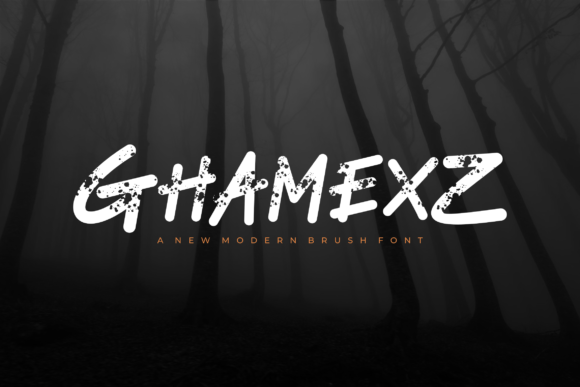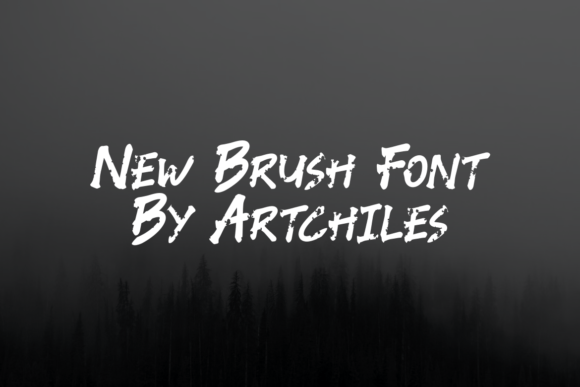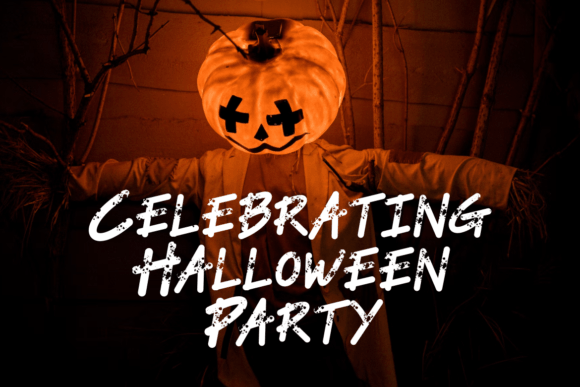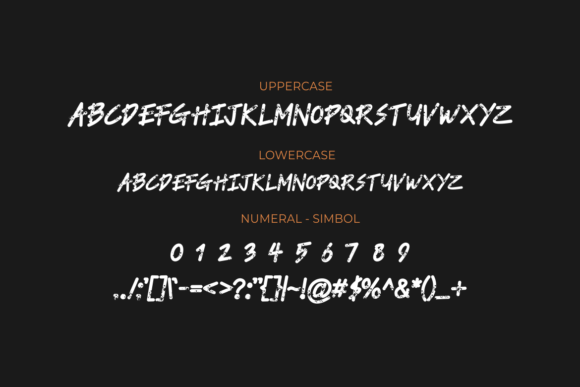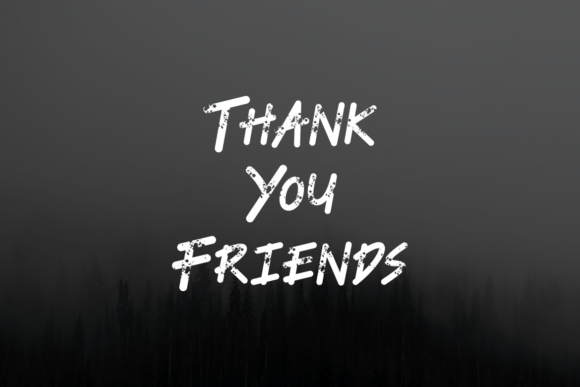
Have you ever stared at a blank canvas, waiting for the perfect font to bring your design to life? It’s a moment we’ve all been in – the creative block that threatens to derail even the most brilliant ideas. But what if the solution was right in front of you? Enter the Ghamexz Font, a bold and authentic display font that’s sure to make your designs stand out.
This modern font is more than just a pretty face – it’s a versatile tool that can elevate any branding project, from logos to esports graphics. Whether you’re a seasoned designer or just starting out, the Ghamexz Font is a valuable addition to your toolkit. Its wide range of applications makes it an excellent choice for designers looking to add a touch of sophistication to their work.
Ghamexz Font Key Features
- Font Family: Ghamexz Font offers a unique combination of modern and traditional design elements.
- Unique Characteristics: Ghamexz Font features a distinctive blend of geometric and organic elements, resulting in a visually striking and highly legible typeface.
Ghamexz Font Review
I recently had the chance to work with the Ghamexz Font, and I must say, it’s a unique and eye-catching addition to any design project. Here are my thoughts:
- Unique design aesthetic: Ghamexz Font has a distinctive look that can add a touch of sophistication to any project.
- Good legibility: Despite its unconventional design, the font is still relatively easy to read, making it suitable for body text.
- Wide character set: The font includes a wide range of characters, including international characters, which is a plus for designers who work on projects that require multiple languages.
- Limited availability: As a relatively new font, Ghamexz may not be as widely supported as more established fonts, which can cause compatibility issues in certain applications.
- Not suitable for all projects: Due to its unique design, Ghamexz may not be the best choice for projects that require a more traditional or conservative look.
Overall, I think Ghamexz Font is a great addition to any designer’s toolkit, but it’s essential to consider its limitations before using it in a project. With its unique design and good legibility, it’s perfect for projects that require a touch of sophistication and creativity.
Getting the Most Out of Ghamexz Font
To get the most out of Ghamexz Font, consider the following tips:
- Use Ghamexz Font for headings and titles to create a bold and eye-catching visual effect.
- Pair Ghamexz Font with other fonts to create a unique and interesting typography.
- Experiment with different font sizes and styles to achieve the desired visual effect.
Some common use cases for Ghamexz Font
Alternatives to Ghamexz Font for Designers
Inter Font is a more modern and minimalist alternative to Ghamexz Font, offering better legibility and a more contemporary aesthetic. While Ghamexz Font has a unique, handwritten feel, Inter Font is more versatile and suitable for a wider range of design applications.
Montserrat Font is a more geometric and structured alternative to Ghamexz Font, offering better readability and a more modern aesthetic. While Ghamexz Font has a unique, handwritten feel, Montserrat Font is more formal and suitable for use in corporate and professional design projects.